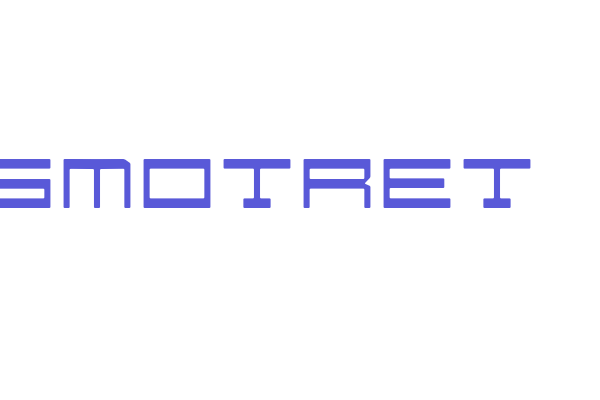
Smotret is a techno font that exudes a futuristic and sleek aesthetic. With a regular style, this font is perfect for projects that require a modern and high-tech look. Its clean lines and sharp edges make it ideal for branding, logos, and digital designs.